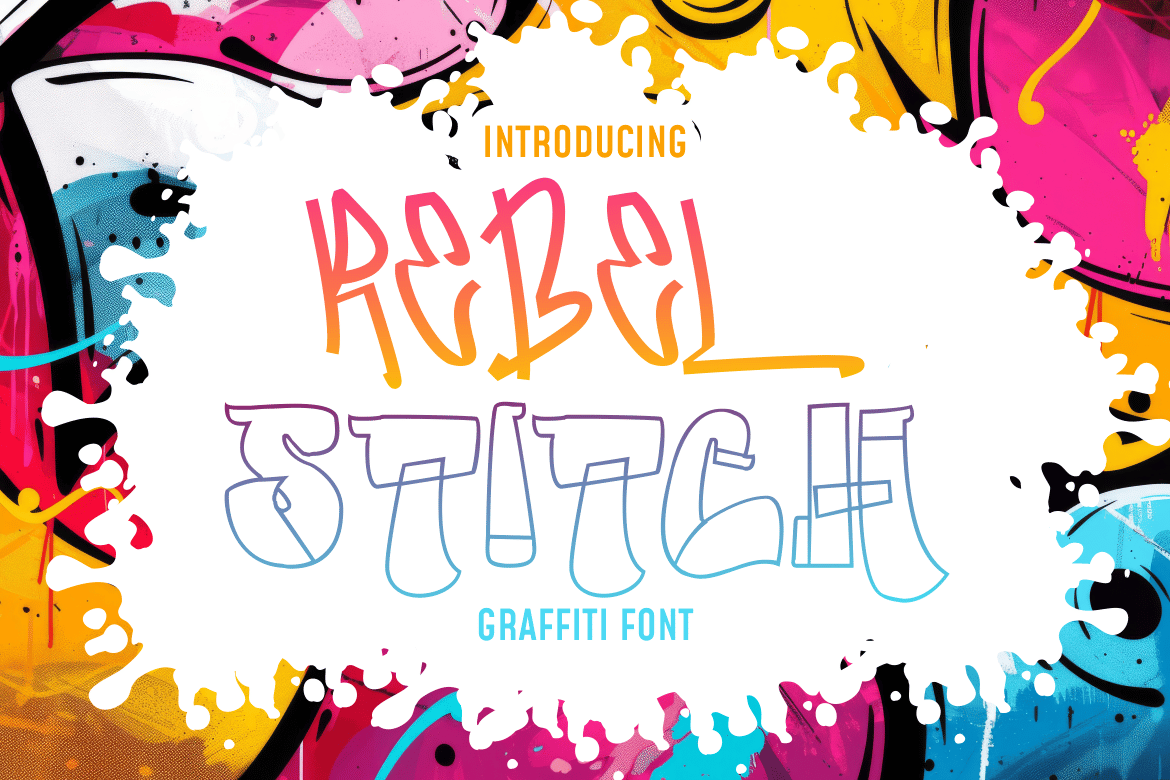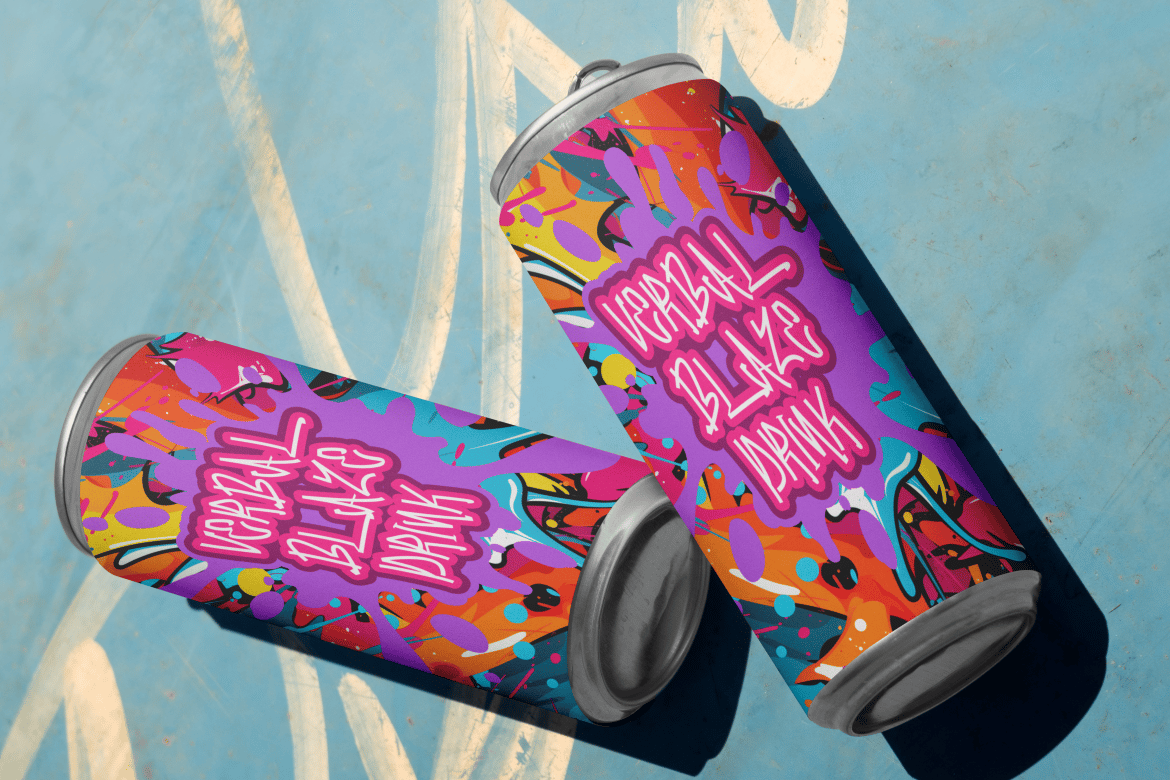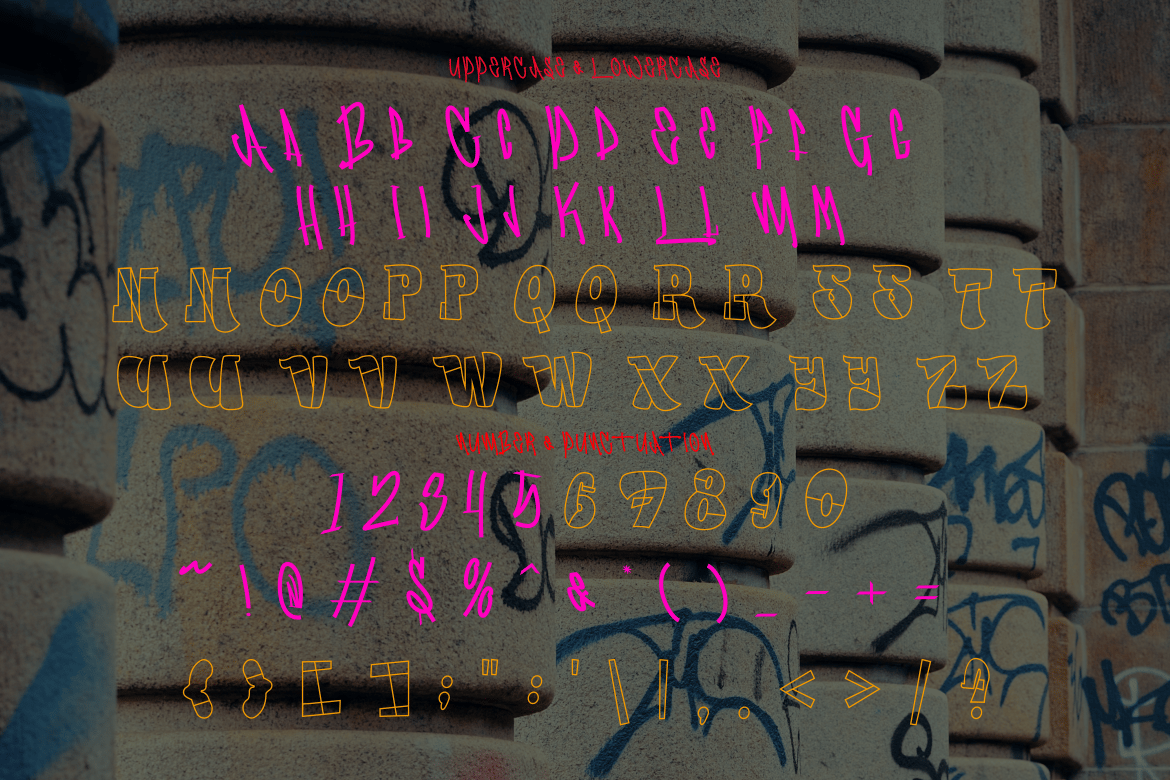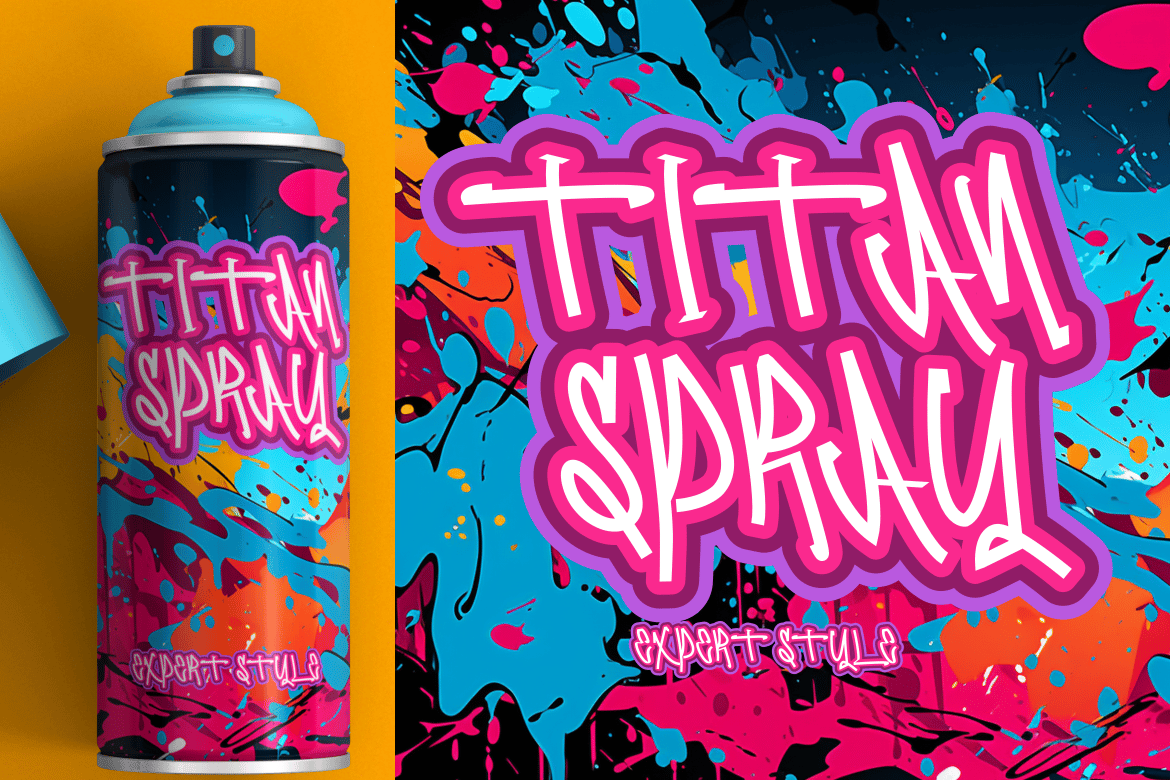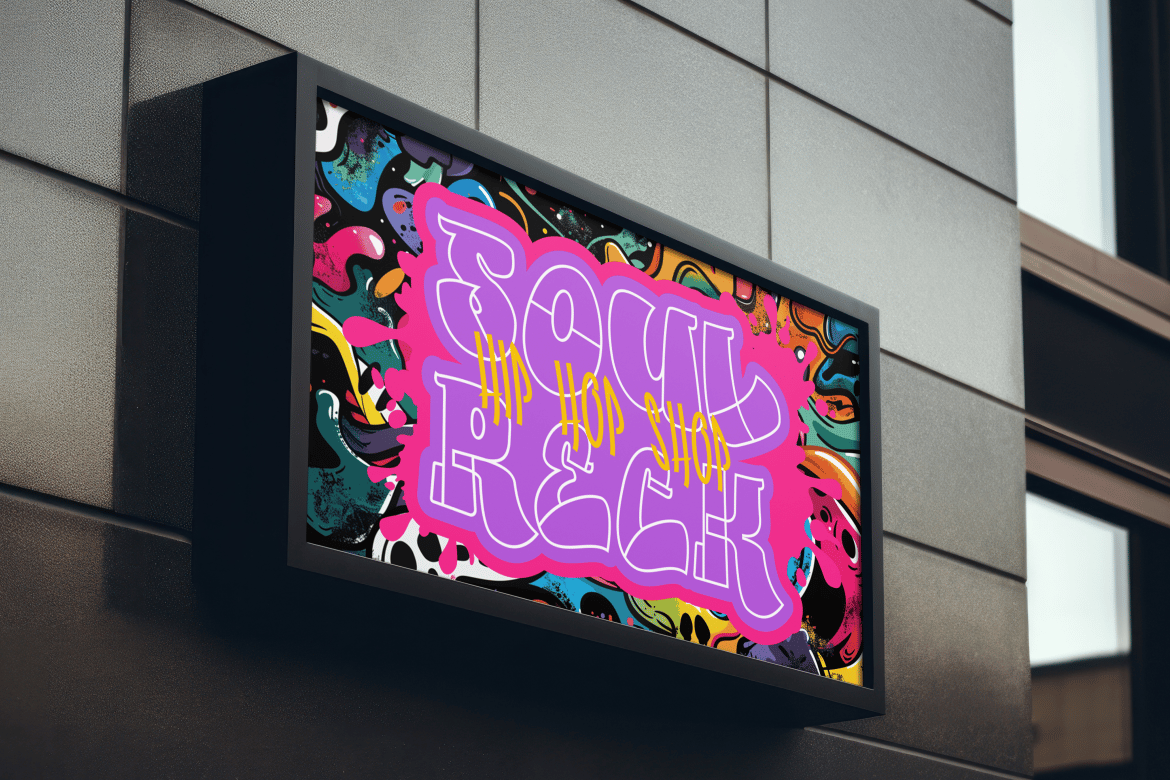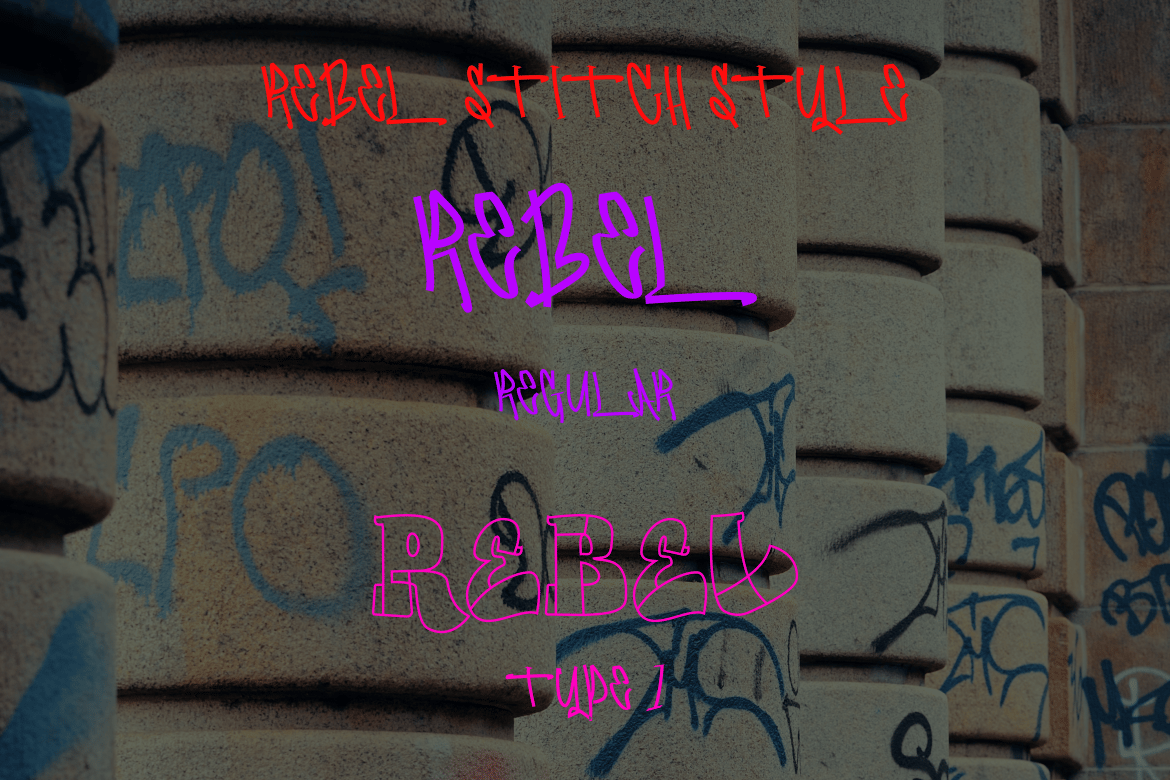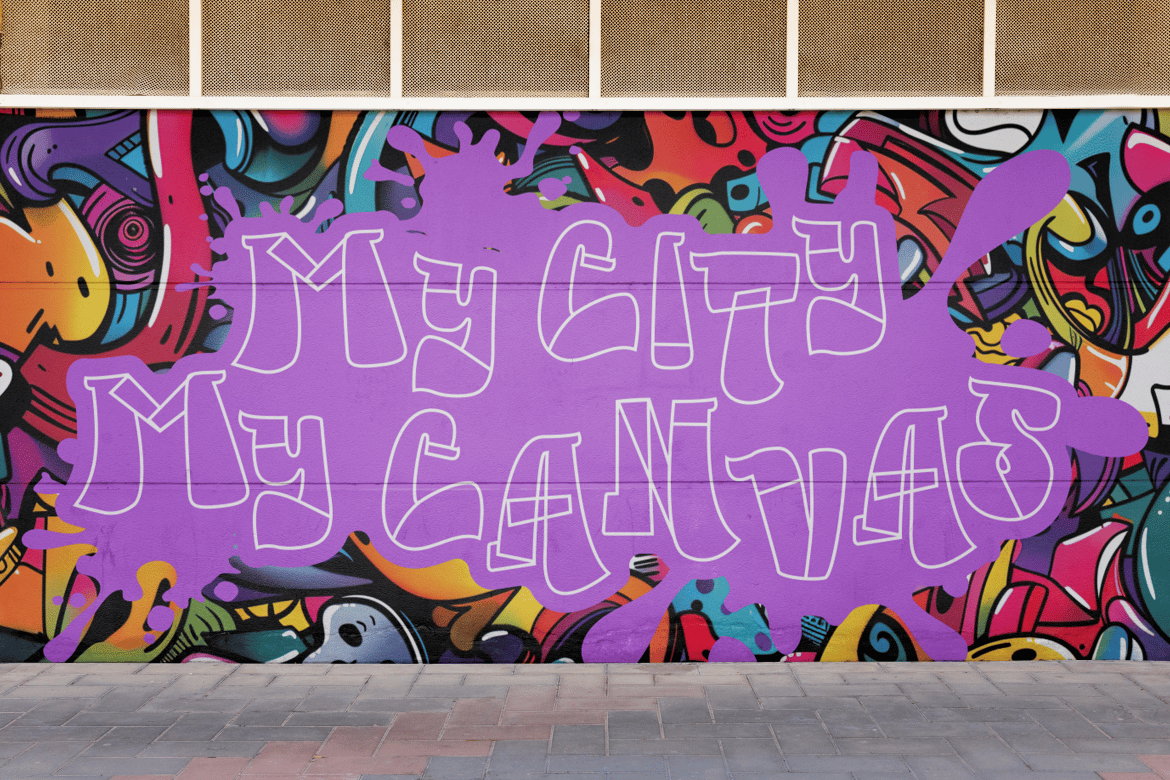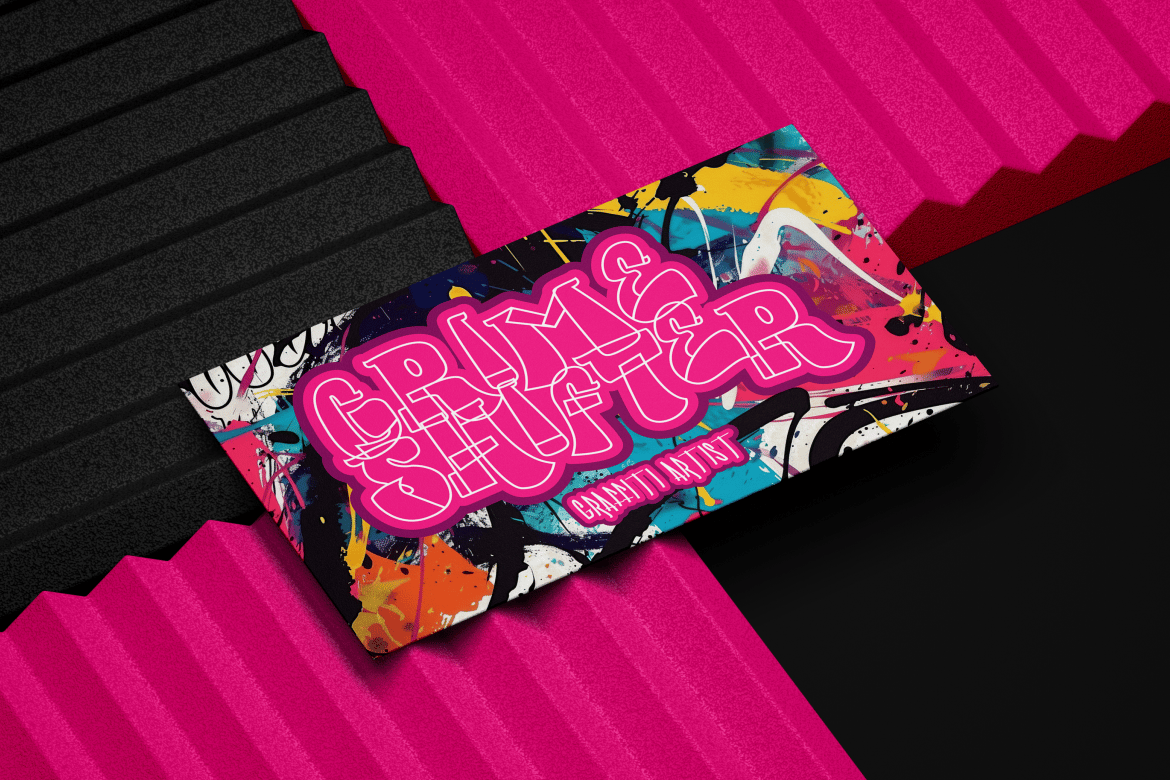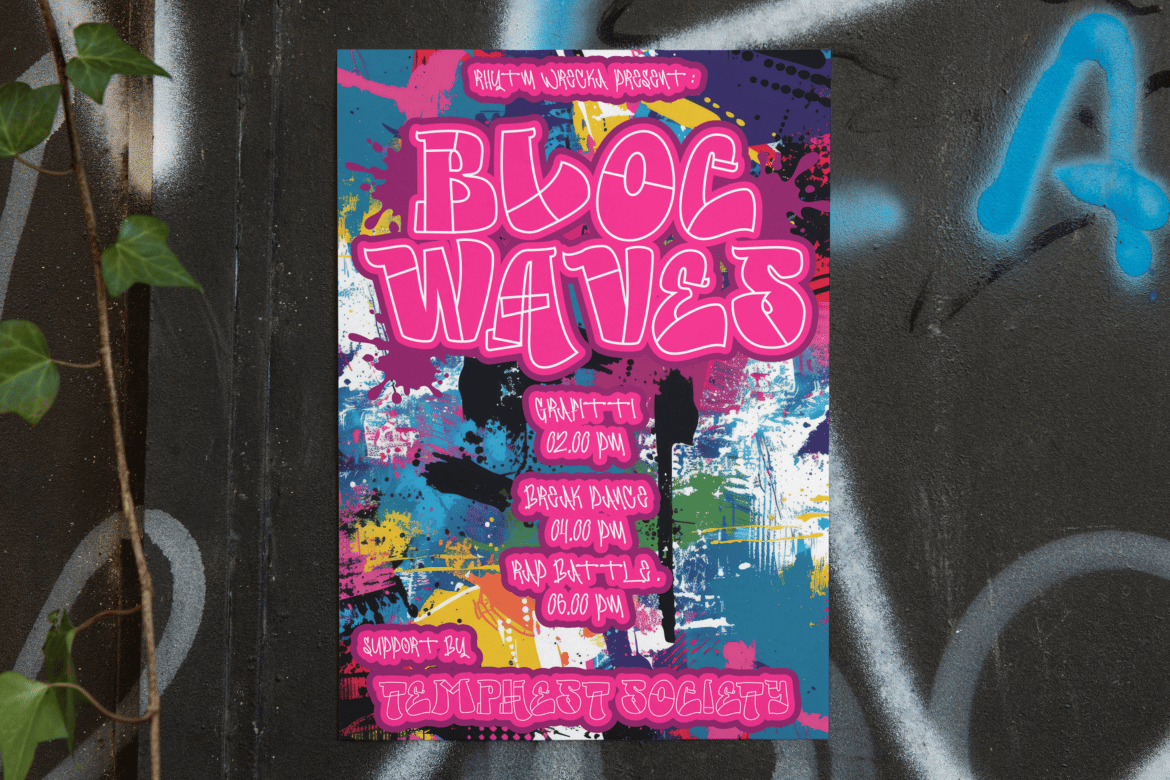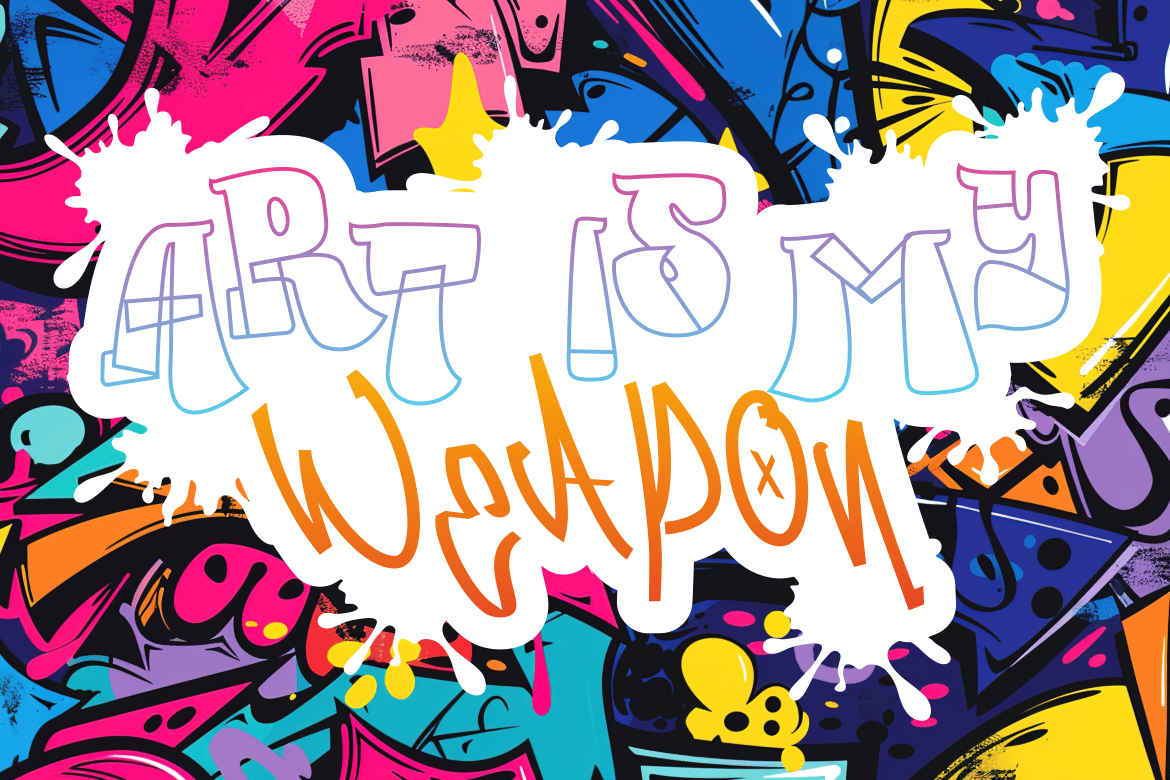
Rebel Stitch – Graffiti Font
Rebel Stitch is an energetic graffiti-style font that captures the essence of urban creativity. Featuring bold, hand-drawn strokes and playful letterforms, this font brings a rebellious and dynamic vibe to any design. Each character is thoughtfully crafted with a unique blend of fluid lines and edgy cuts, reflecting the true spirit of street art. The vibrant gradient effect on the letters adds depth and personality, making the text pop against any background. Perfect for projects that require a youthful, bold, and contemporary style, Rebel Stitch is your go-to font for standing out.
The background design complements the font with splashes of vivid colors like pink, yellow, and teal, paired with black and white contrasts to amplify the graffiti aesthetic. This font is ideal for creating attention-grabbing posters, branding materials, packaging, album covers, and more. Whether you’re designing a streetwear logo or crafting a trendy event invite, Rebel Stitch delivers authenticity and attitude in every stroke.